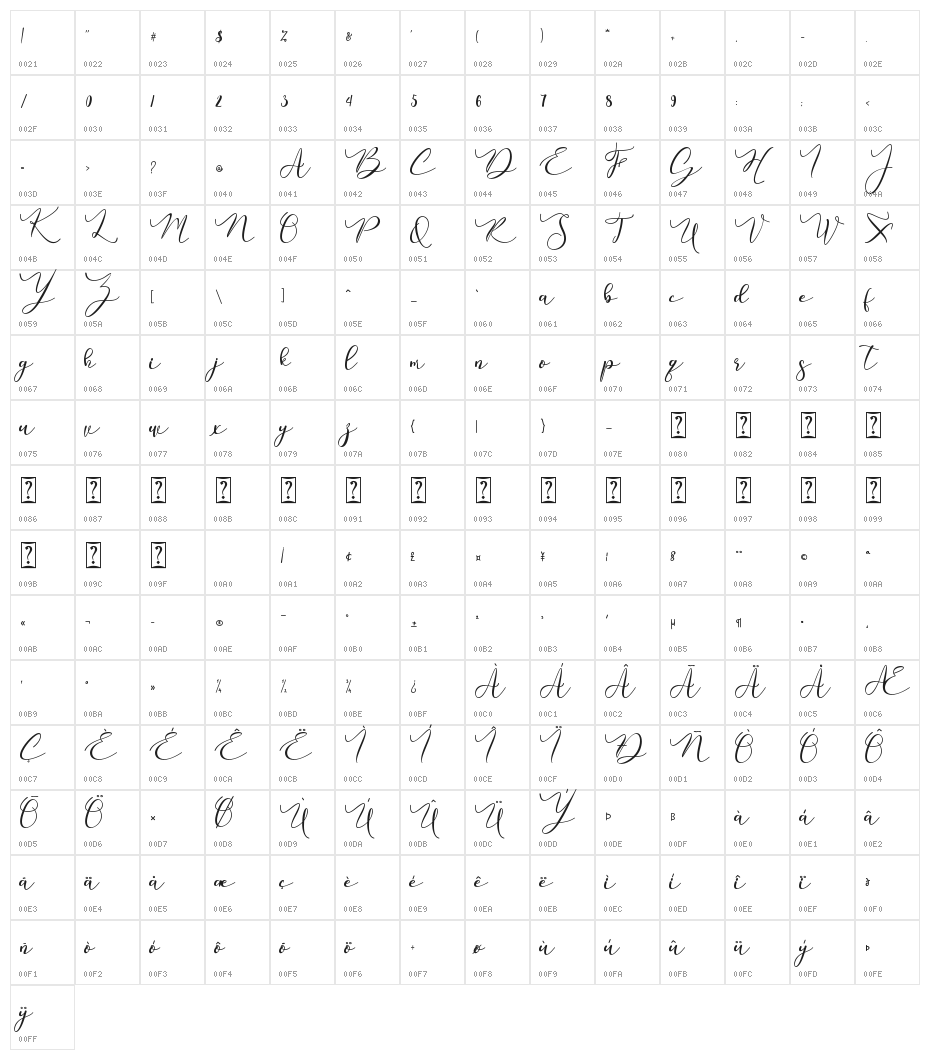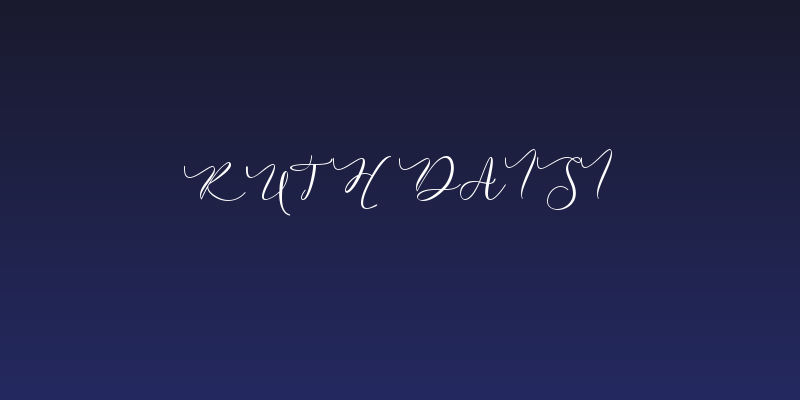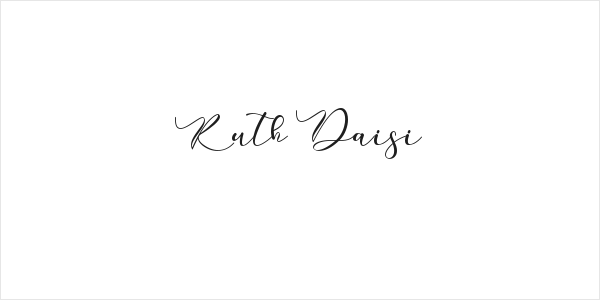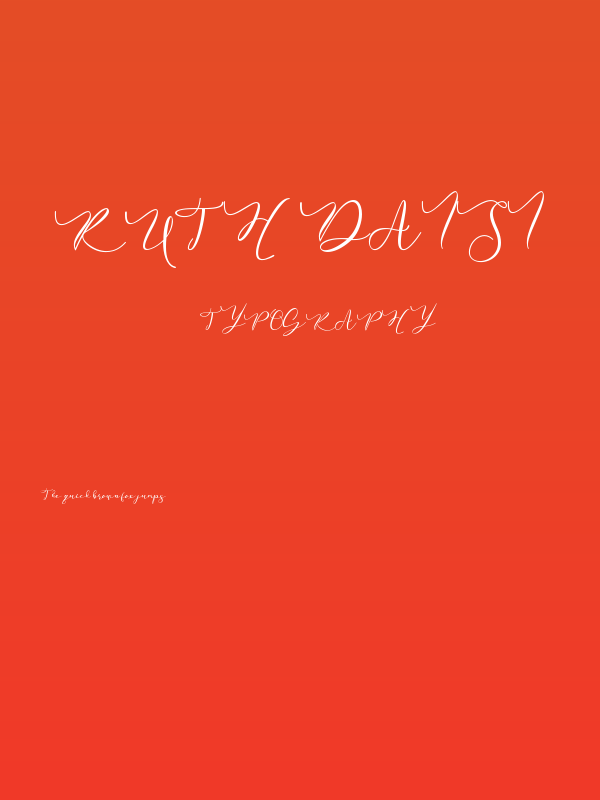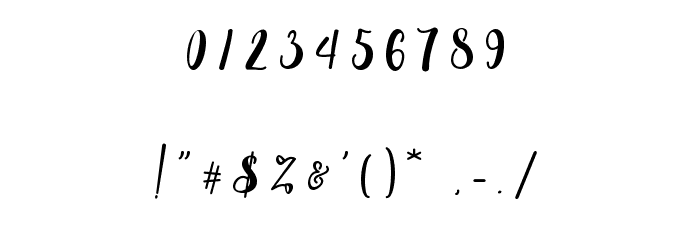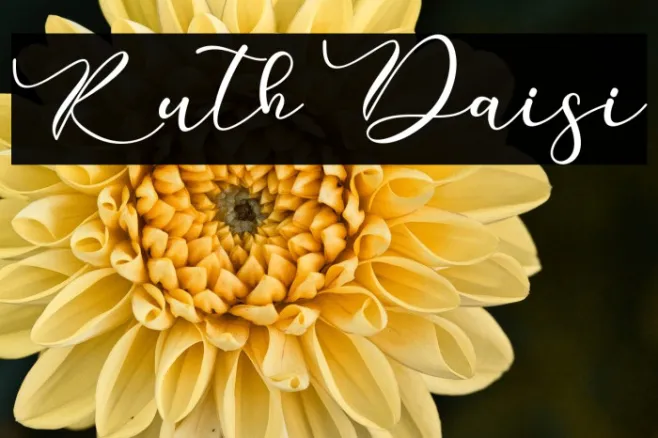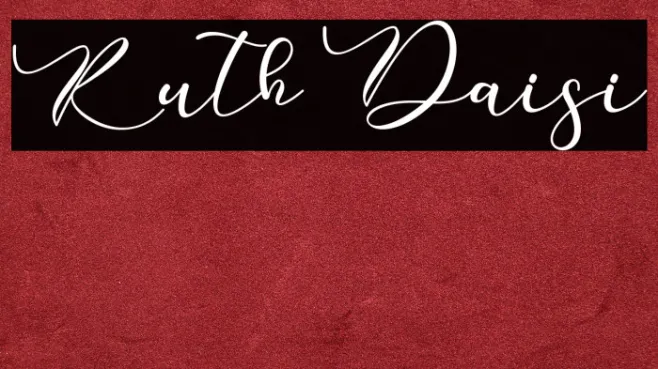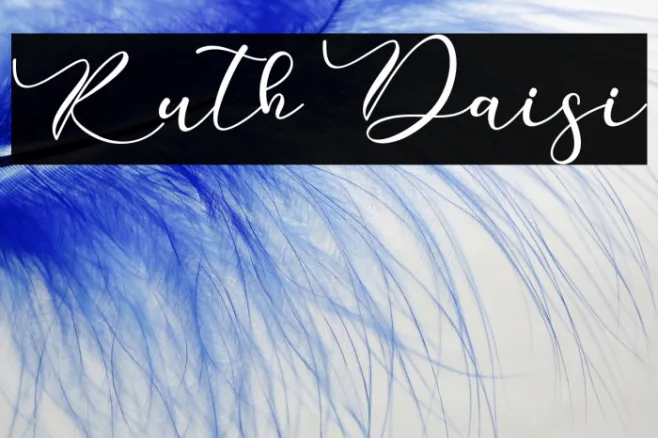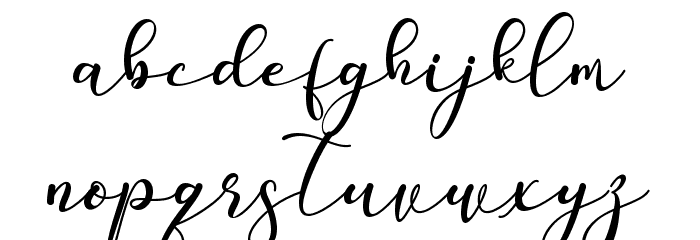
Ruth Daisi Font
Ruth Daisi Description
This elegant script font features a flowing, cursive style with a modern touch. The uppercase letters are gracefully connected, while the lowercase letters exhibit a smooth, continuous stroke that enhances readability. The numerals maintain a consistent style, complementing the overall aesthetic. Special characters are thoughtfully designed to match the font's sophisticated appearance. The font's delicate curves and balanced proportions make it suitable for various design applications, adding a touch of elegance and refinement.